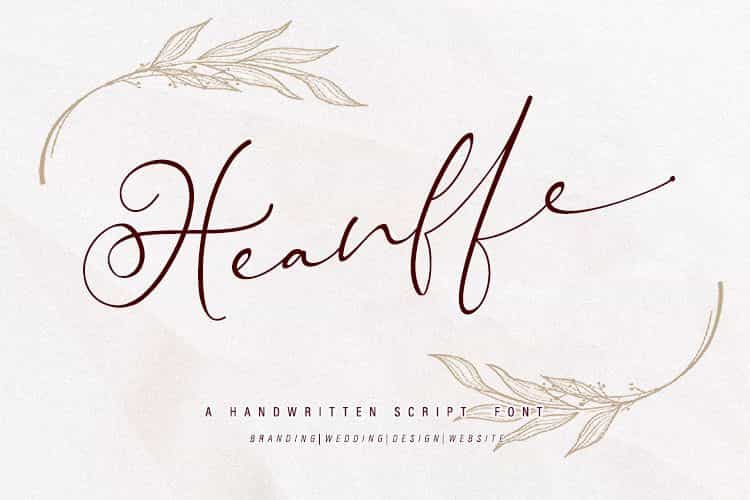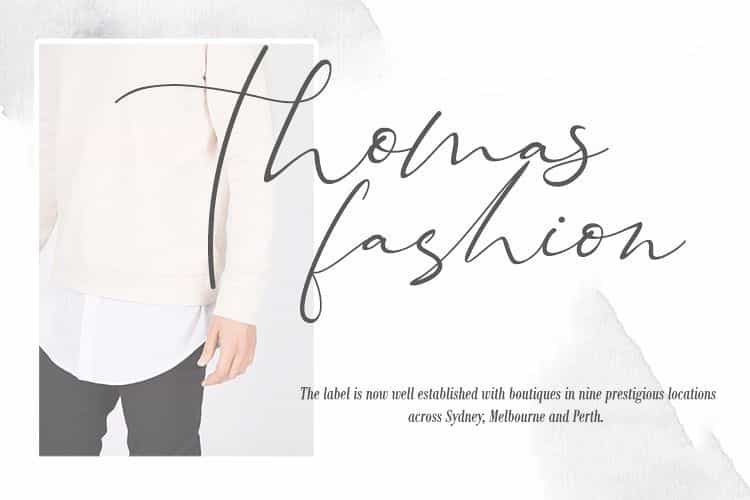
Heanffe is a peculiar handwritten typeface that has a pleasant touch to it which might be needed for some projects. Heanffe also contains the whole set of uppercase and lowercase letters, different symbols of different languages, numerals, and punctuation marks. The font is smooth with wet ink texture and will be suitable for all designs that we are to create.